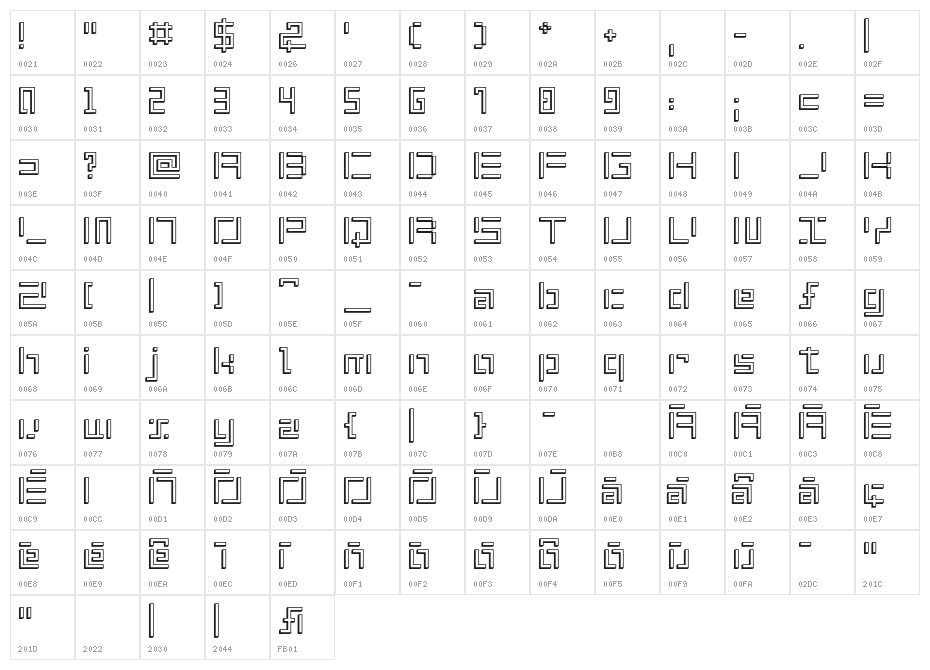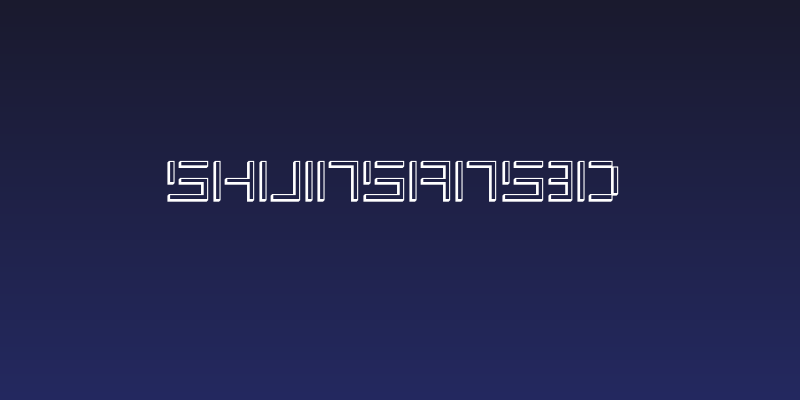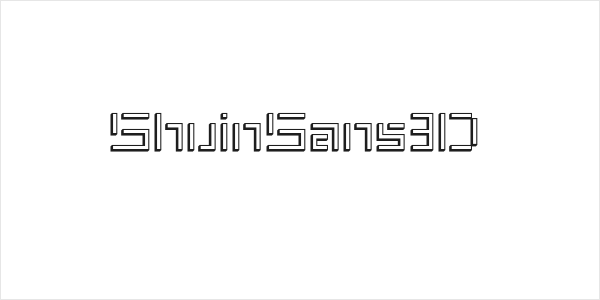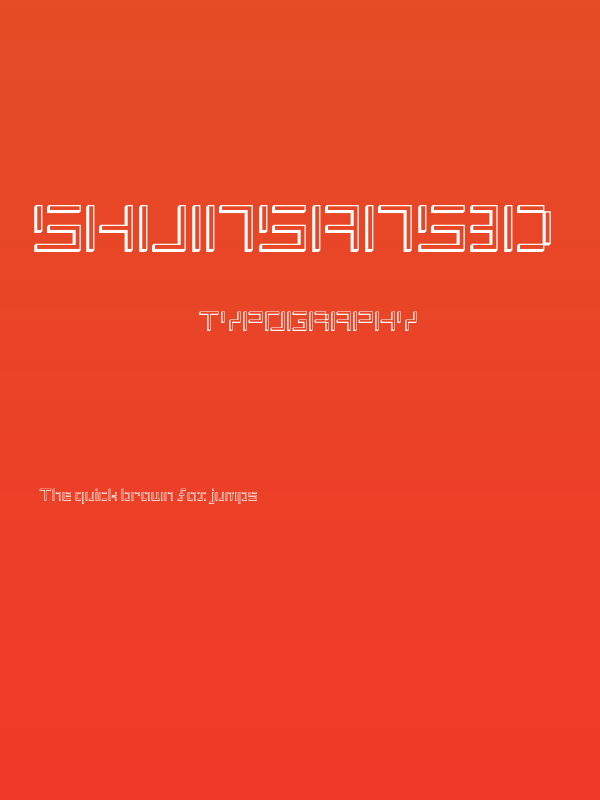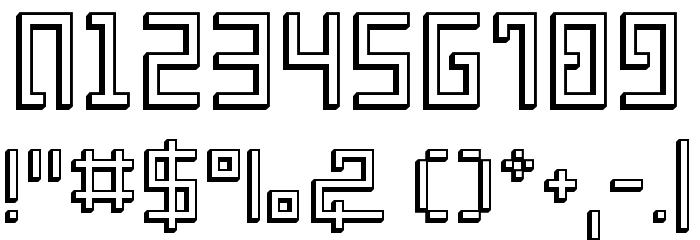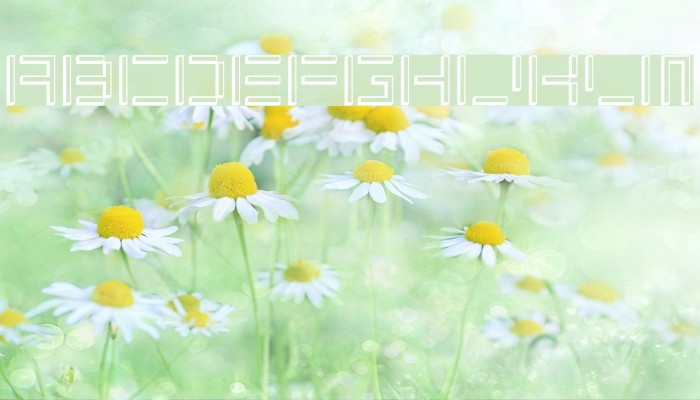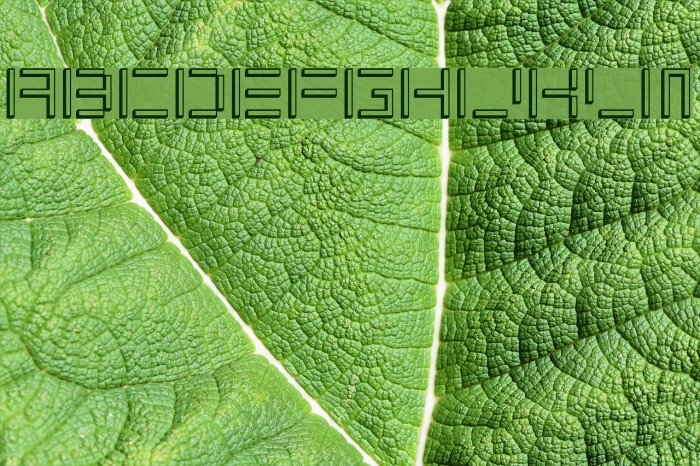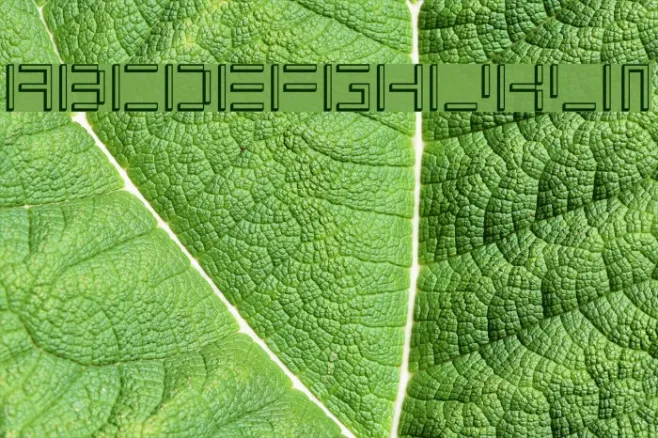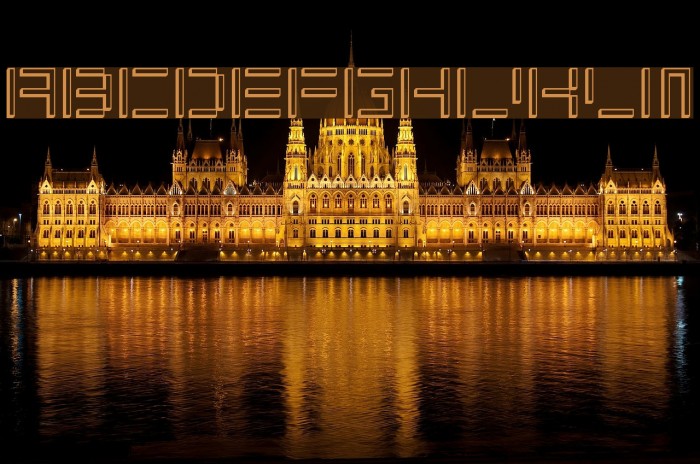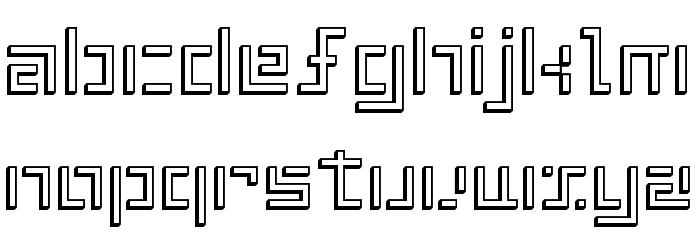
ShuinSans3D Font
ShuinSans3D Description
This font features a unique 3D outline style that gives each character a distinct, futuristic appearance. The geometric shapes are consistent throughout, with each letter and number maintaining a uniform structure. The uppercase and lowercase letters share a similar design, with slight variations to distinguish them. The numbers are bold and clear, making them easily readable. Special characters are included, matching the overall aesthetic of the font. The hollow, outlined nature of the characters adds a modern and edgy feel, suitable for creative and innovative design projects.
| Proposed Projects | Ideal for technology-themed designs, video game graphics, sci-fi posters, and modern branding projects. |